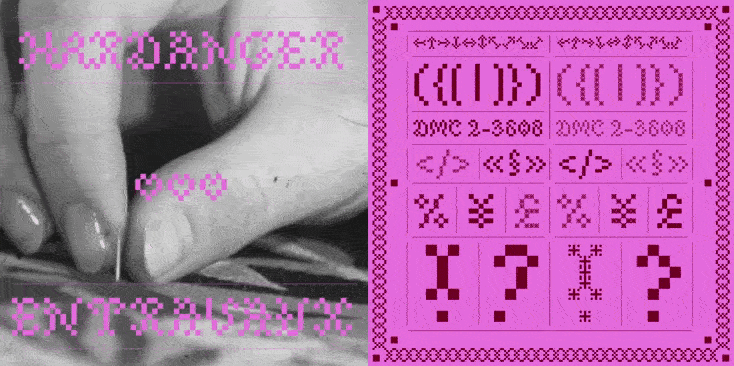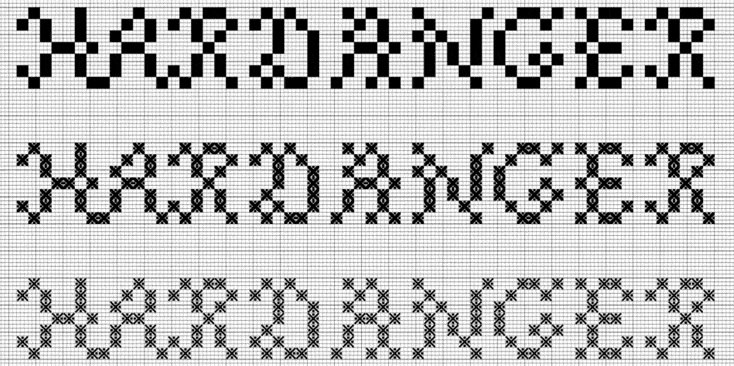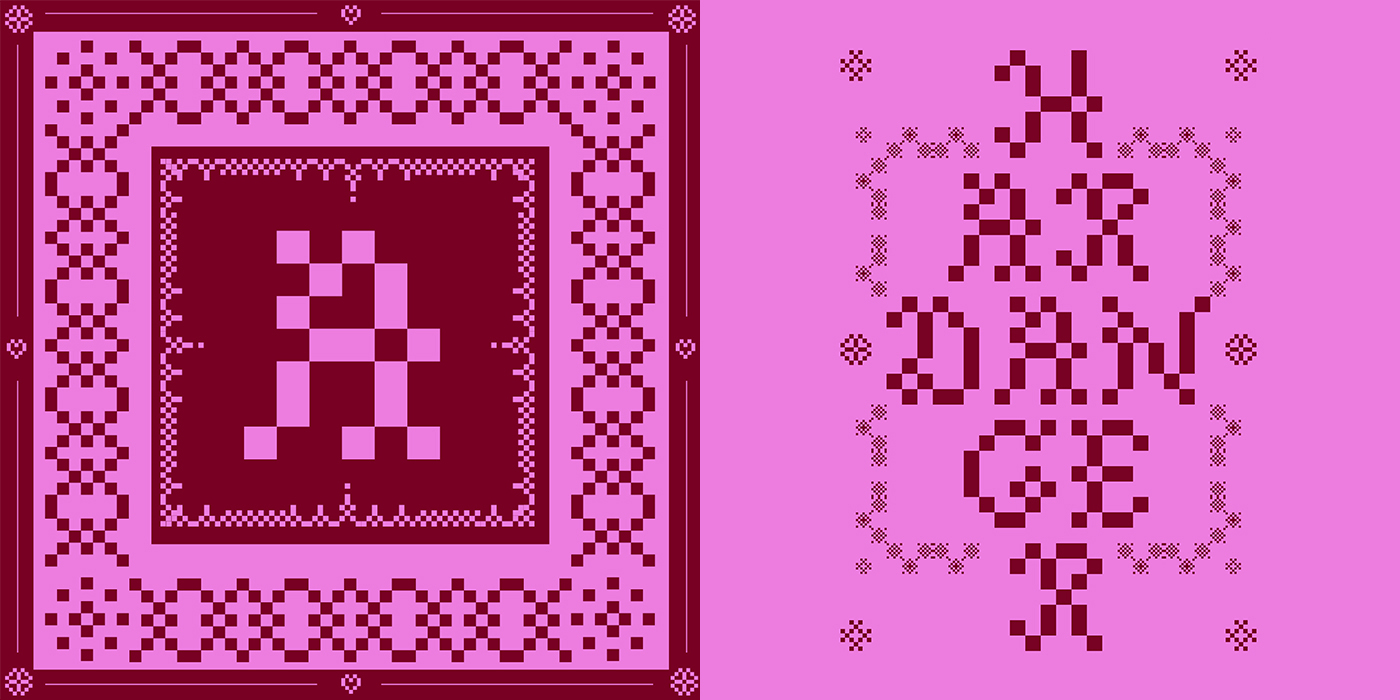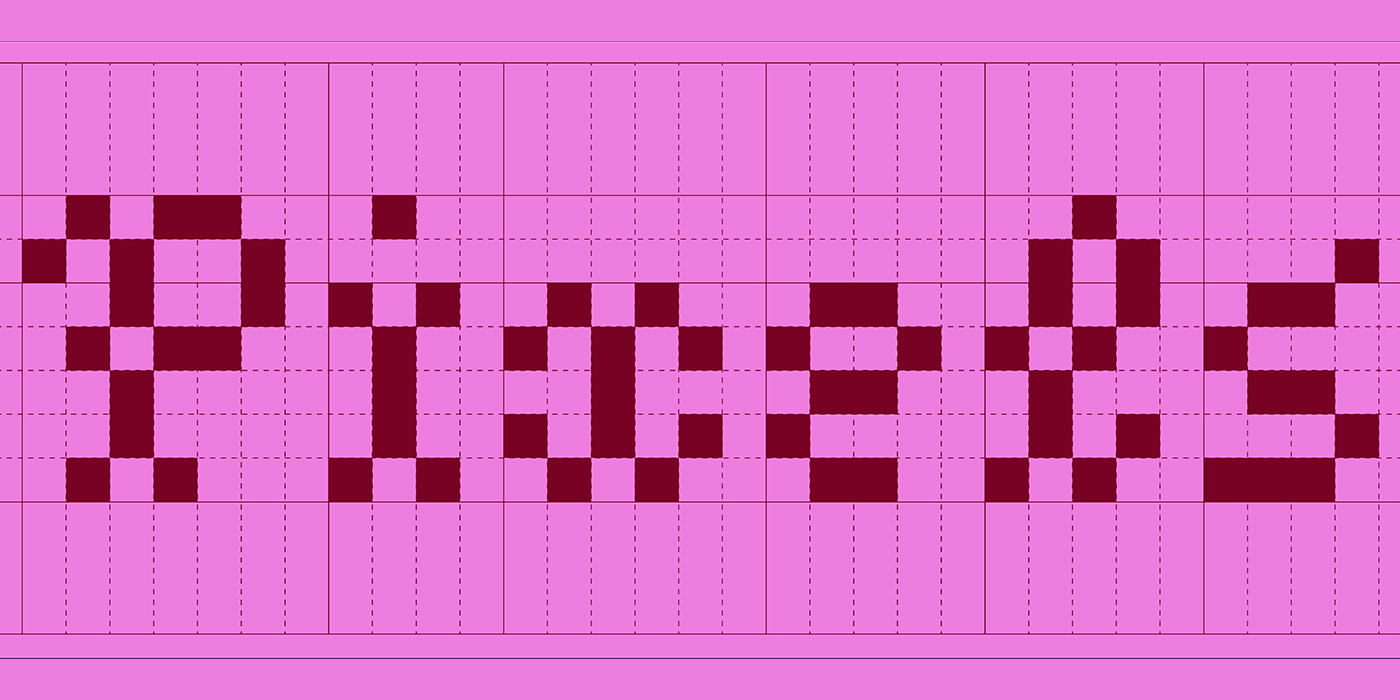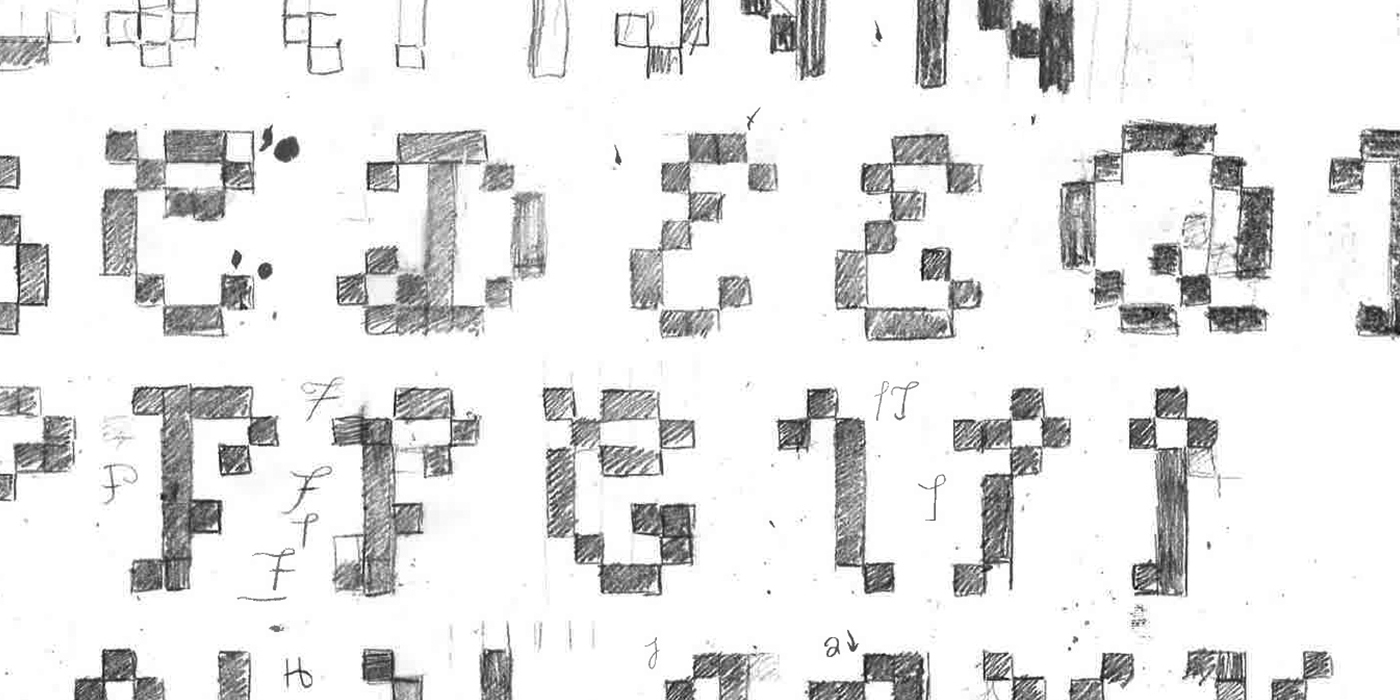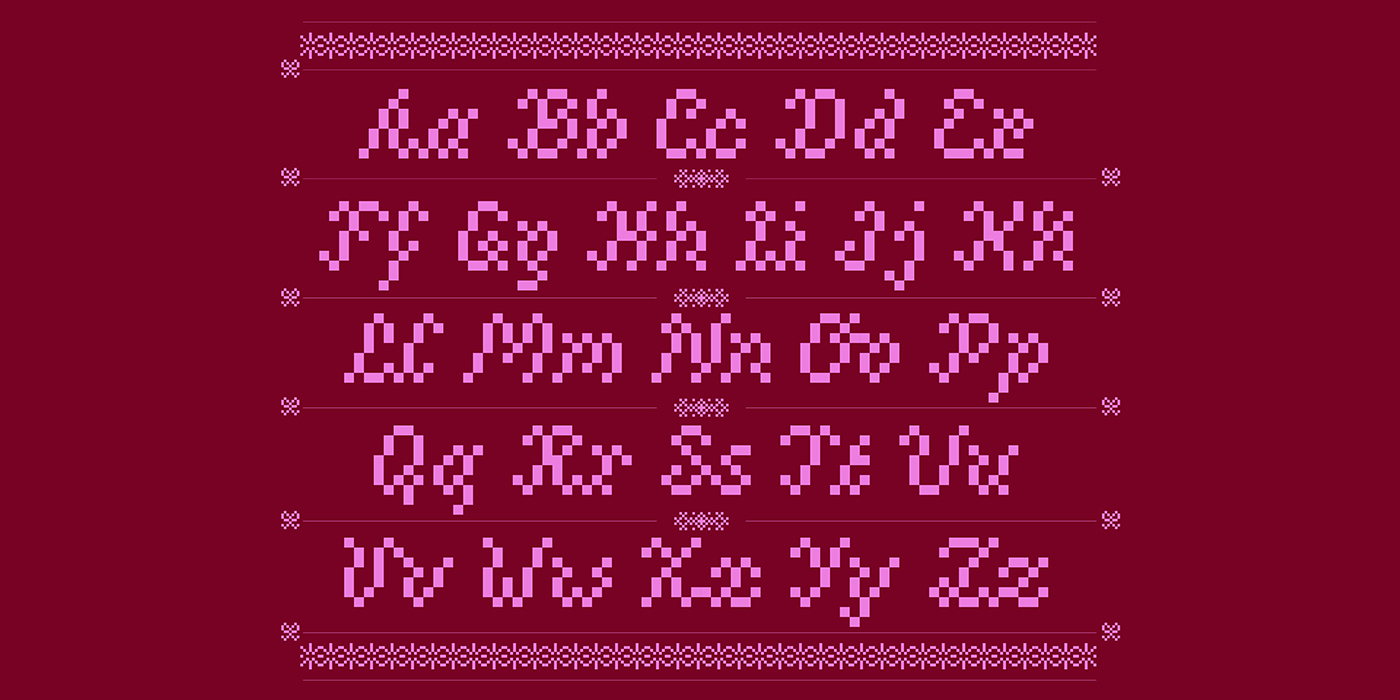
Dear amigos, today’s find is all about type. Inspired by a mix of traditional norwegian’s embroidery and 8-bit retro aesthetics, Hardanger is a pixel font designed by Agathe Millet.
The starting seed for the project was brief for Millet’s type class, which was to create a modular font. Coming back from a exchange semester in Oslo, Norway, she knew pretty quickly what she wanted to do for this project: a mix between technology and tradition, based on a pixel.
Millet: “This embroidery is very special because of it geometric aspect that I really love. As I said, the retro style was also a big part of the creation of Hardanger”.
Each character is based on a 7-pixel grid. This constraint led Agathe to find a compromise between legibility and aesthetics, in order to have letters that are understandable but in the maximalist world of embroidery. In the regular version, each intersection is “empty” to match with the Hardanger embroidery principle of full and empty embroidered squares. In Italic, the font looks more like a cursive and reinforces the traditional look.
Millet takes the pixel as the basis of her research: “I wanted it to be large to resemble 8-bit/retro style without falling too far into this category; it’s also this size that enabled me to create apertures in my letters to make them lighter and more delicate. I find it interesting to confront two seemingly opposing concepts to create a rich and complex design.”
She developed the 3 alternative versions, transforming the pixel into several patterns, always derived from embroidery.
Millet: “I do this job because I love creating visuals and helping people to have beautiful graphic media that meet their needs. I’ve had a passion for books and writing since I was a little girl; today, I write less, but I draw letters to write and lay out books, so it’s like coming full circle.”
Currently based in Montpellier, France, Agathe Millet is a graphic and type designer with a master’s degree in art direction (from ECV school in Bordeaux) and she has been working as a freelance graphic designer since the beginning of 2024.
Type design is a passion for Agathe, who enjoys designing custom typefaces for her customers: “I also love testing new things such as visuals compositions, between art and graphic design, by experimenting several materials, textures, layout etc”
When asked for advice for other designers, she insists: “Don’t be afraid to show off your work and, if you can, keep working on personal projects”